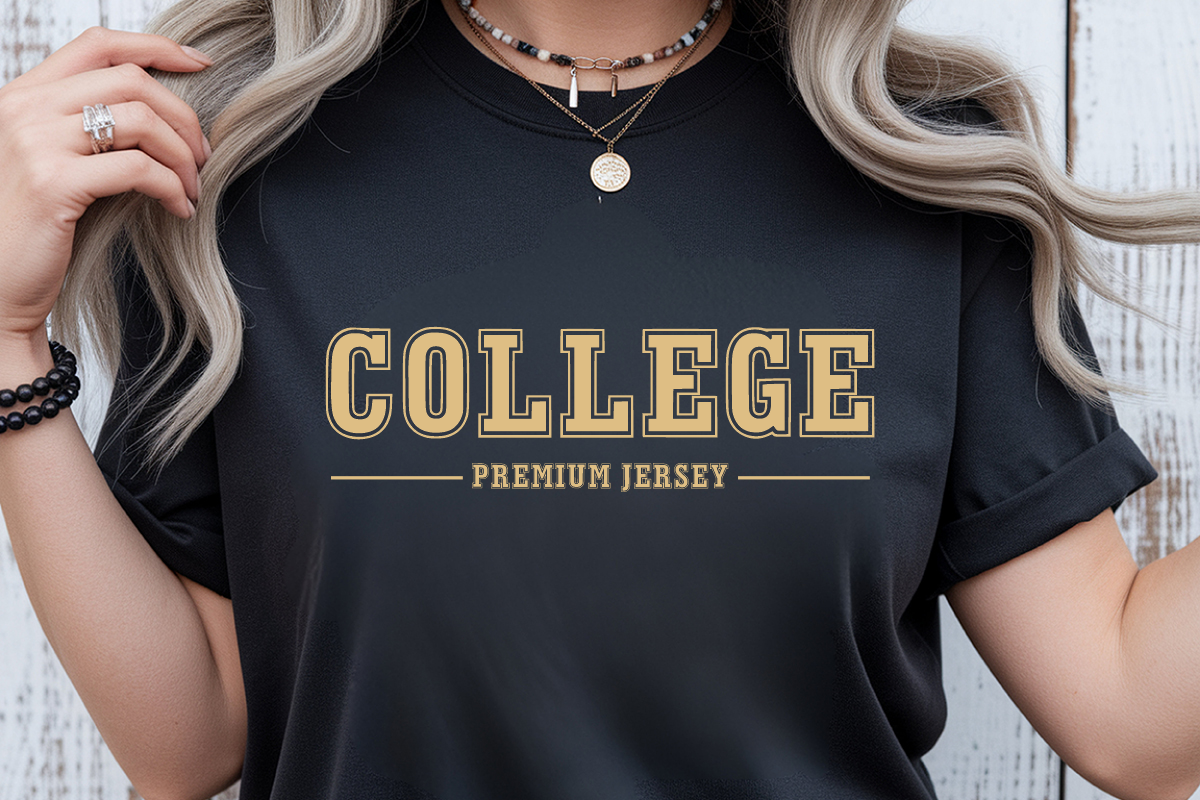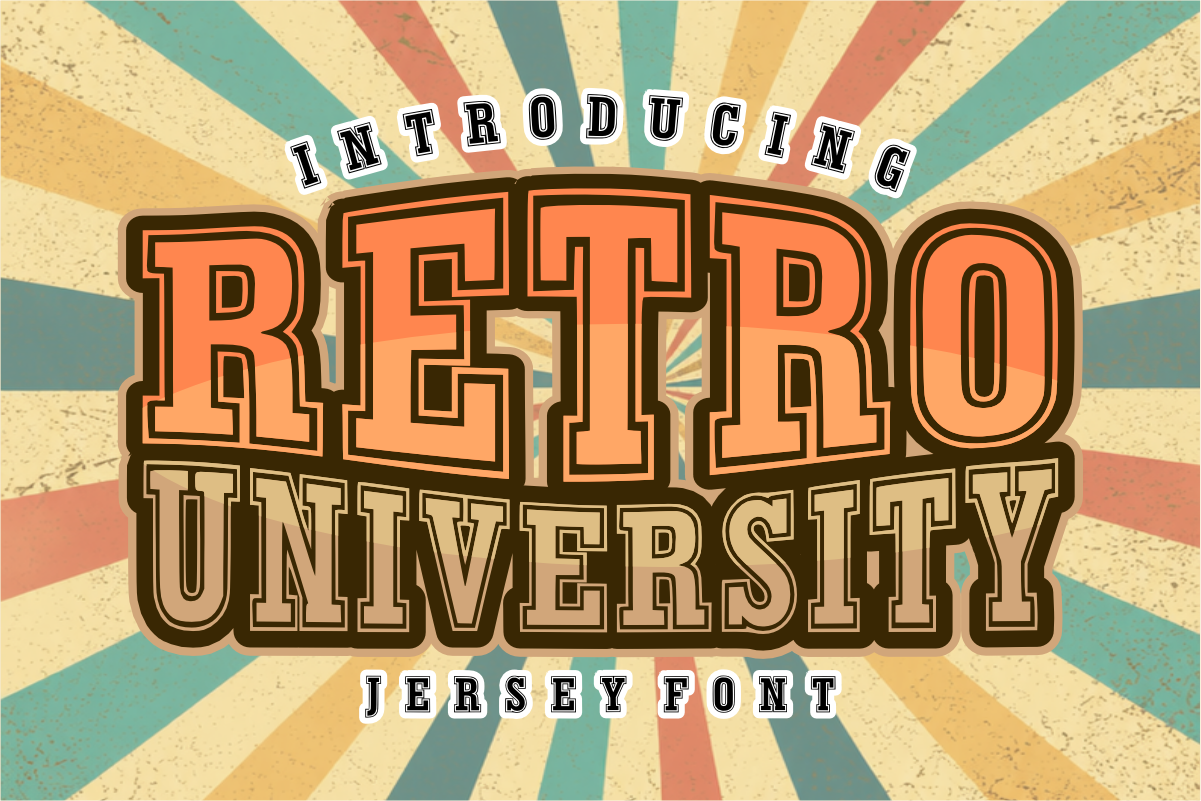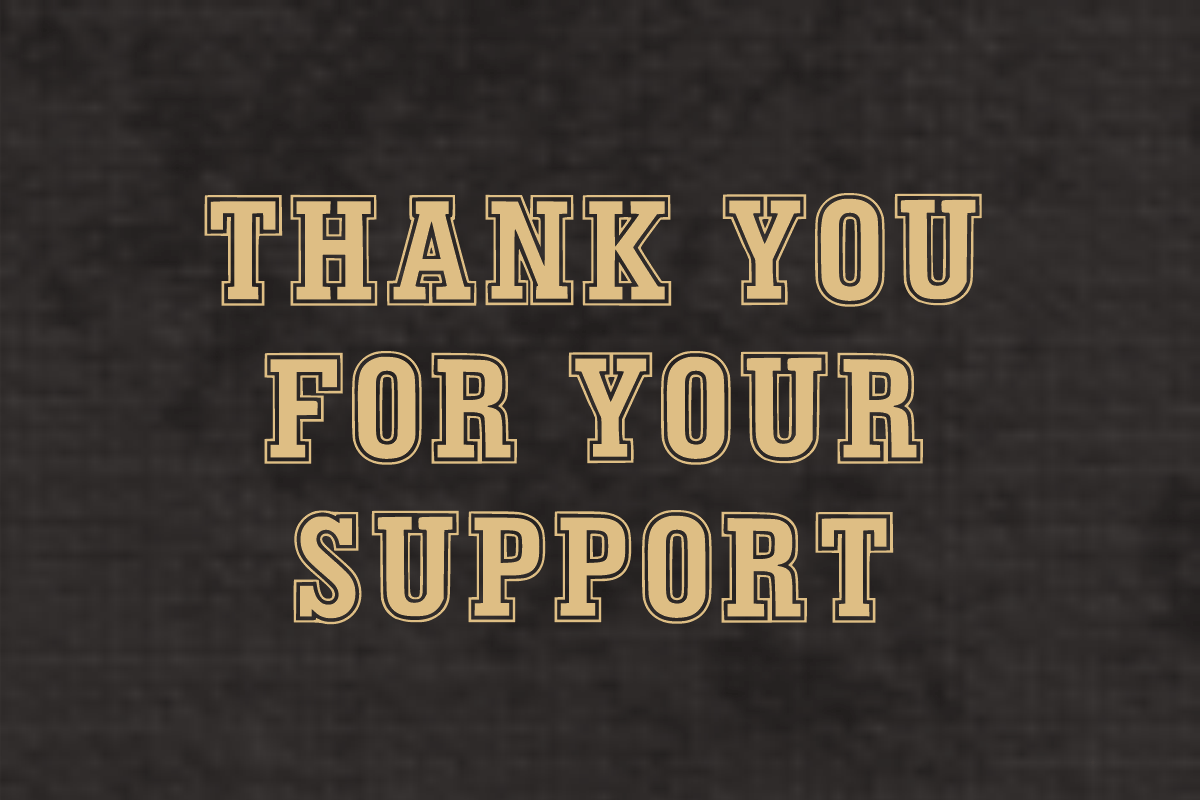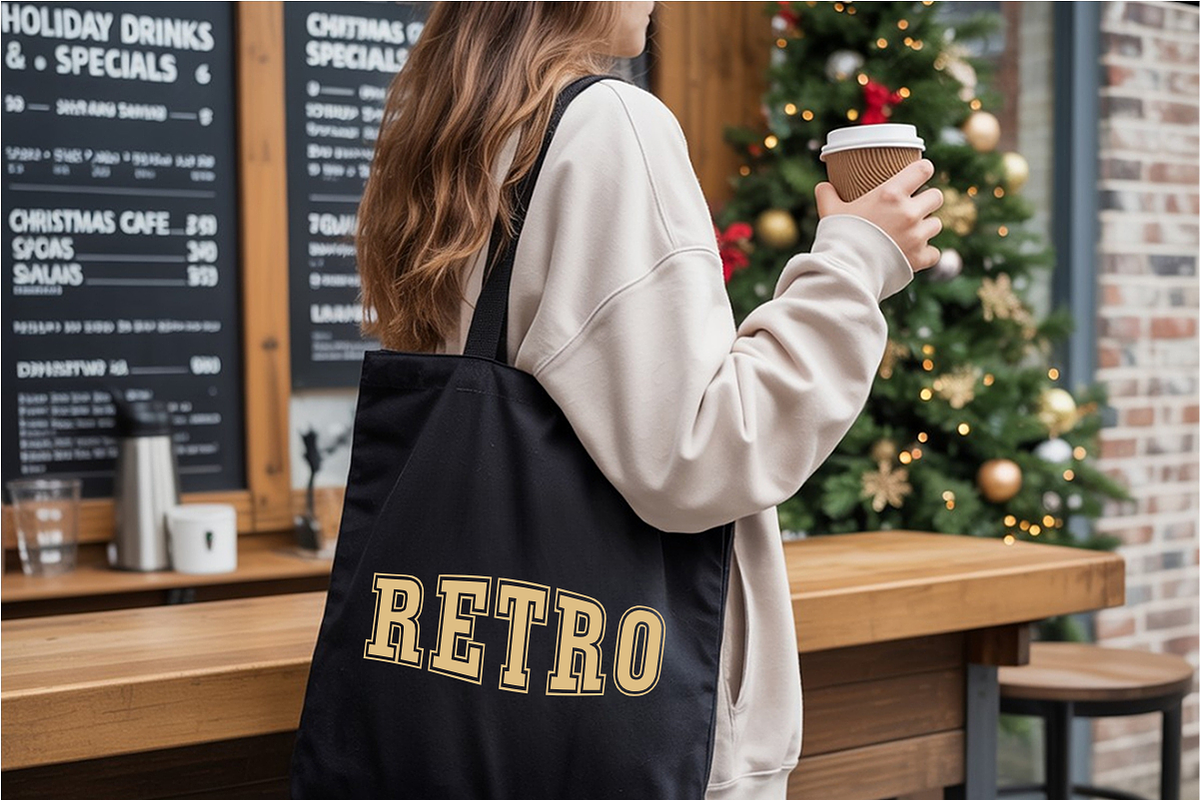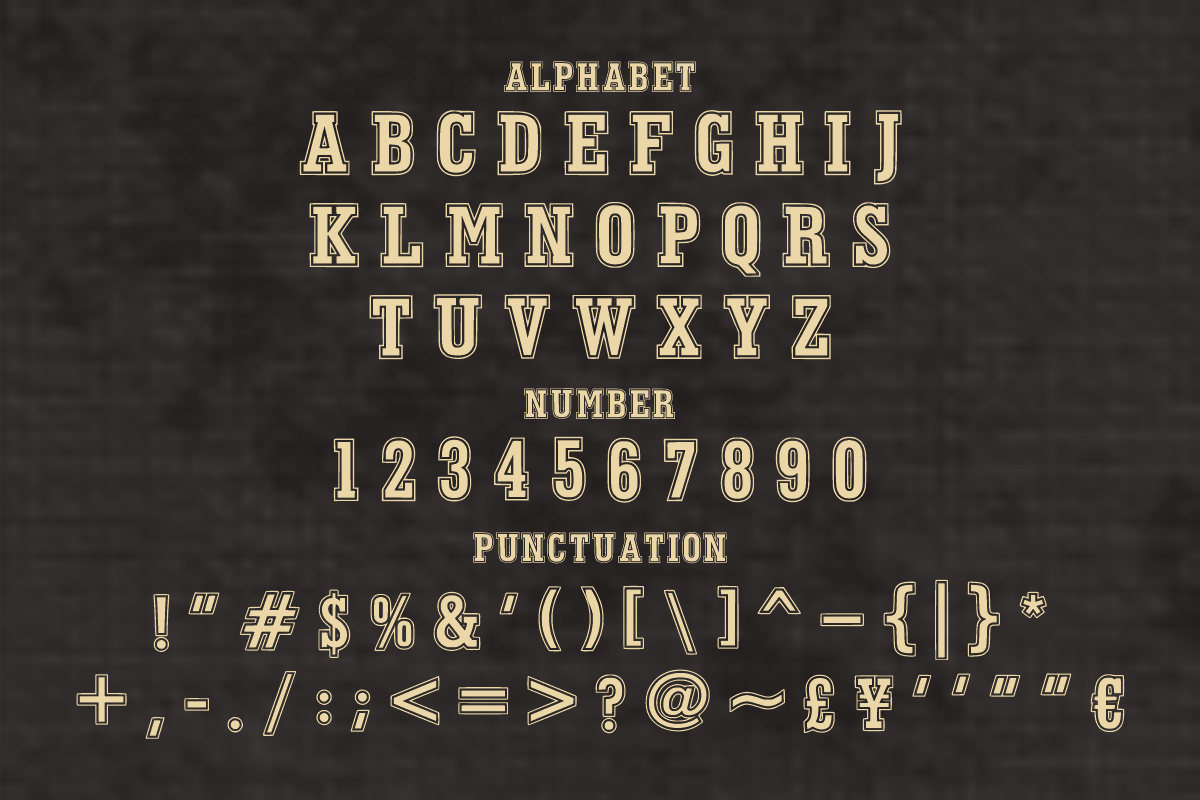
RETRO UNIVERSITY-Groovy Varsity Font
✌️ Hey Trendsetters! Meet Retro University - The Ultimate Groovy Varsity Font! 🌟
Get ready to channel ultimate nostalgic vibes! Retro University is a premium display font that perfectly blends the groovy, sun-drenched aesthetic of the 70s with the bold, timeless structure of classic collegiate athletic lettering. Featuring an eye-catching inline detail, this font delivers instant vintage charm and massive shelf-appeal.
If you’re looking to create trendy streetwear, high-spirited campus merchandise, or bold retro graphics, Retro University is your absolute winning play!
✨ What’s Packed in the Kit:
_ 🔠 _\Bold Uppercase Letters (A-Z)\\* – Classic collegiate block style with a stylish inline twist.
_ 🔢 _\Matching Numbers (0-9)\\* – Perfect for retro sports jerseys, years, and countdowns.
_ 🔣 _\Simple Symbols & Punctuation\\* – The essential basics to seamlessly complete your phrases.
🎯 Ideal For Your Next Bestseller Project:
\* 👕 Retro T-Shirts, Hoodies & Vintage Streetwear Brands
\* 🎒 College & Varsity Apparel / Campus Spirit Merch
\* 🧢 Sports Team Logos, League Branding & Tailgate Posters
\* 🎨 Clean SVG Cut Files for Cricut & Silhouette (Super easy to weed!)
\* 🥤 Trendy Stickers, Tote Bags, Coasters, and Social Media Graphics